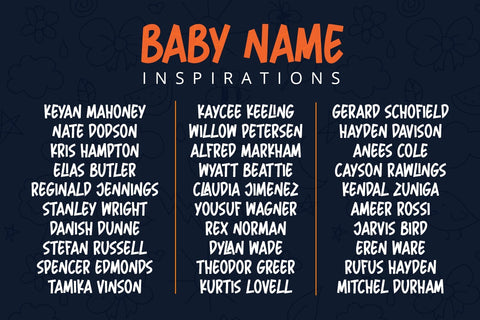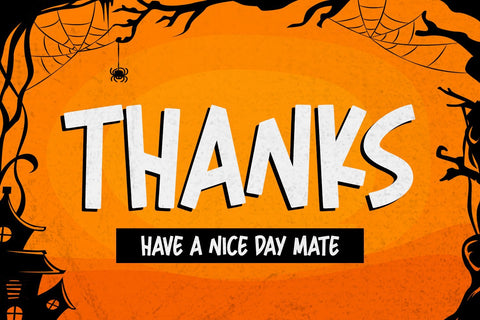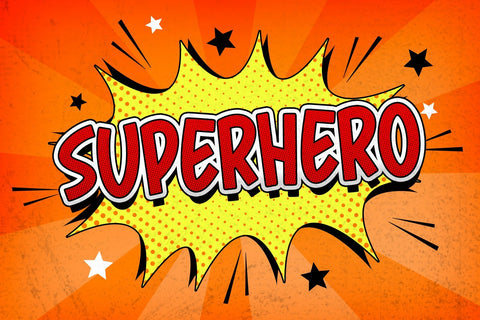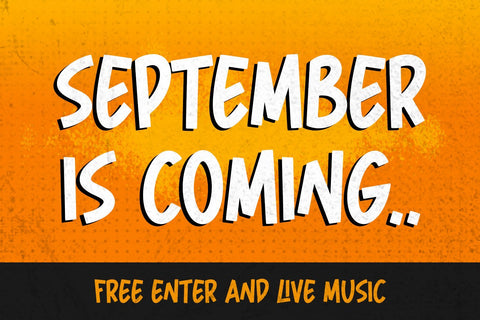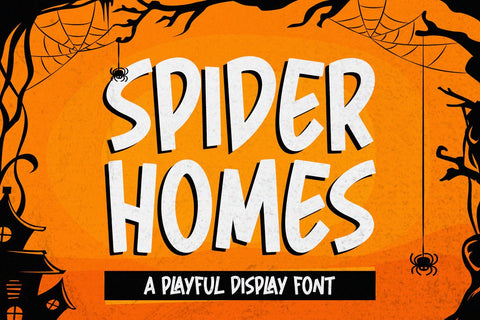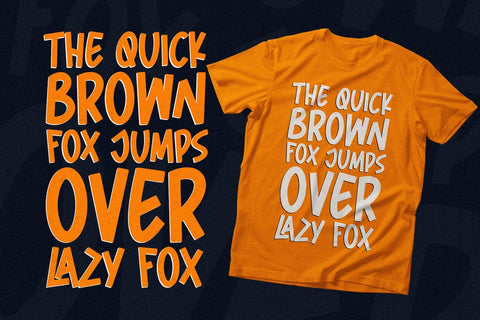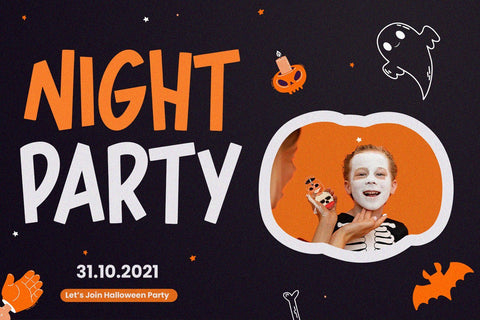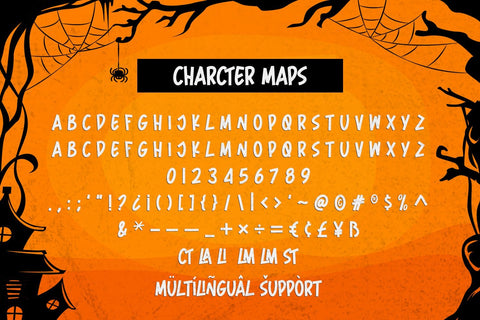
Spider Home - Playful Display Font
Spider Home is a stunning playful display font with cute and casual feels. It will be perfectly used for Branding, Logo Design, Lettering, Logotype, Clothing, Poster, magazine, packaging, posters, shopping bags, t-shirts, book covers, photography, special events and other design project.